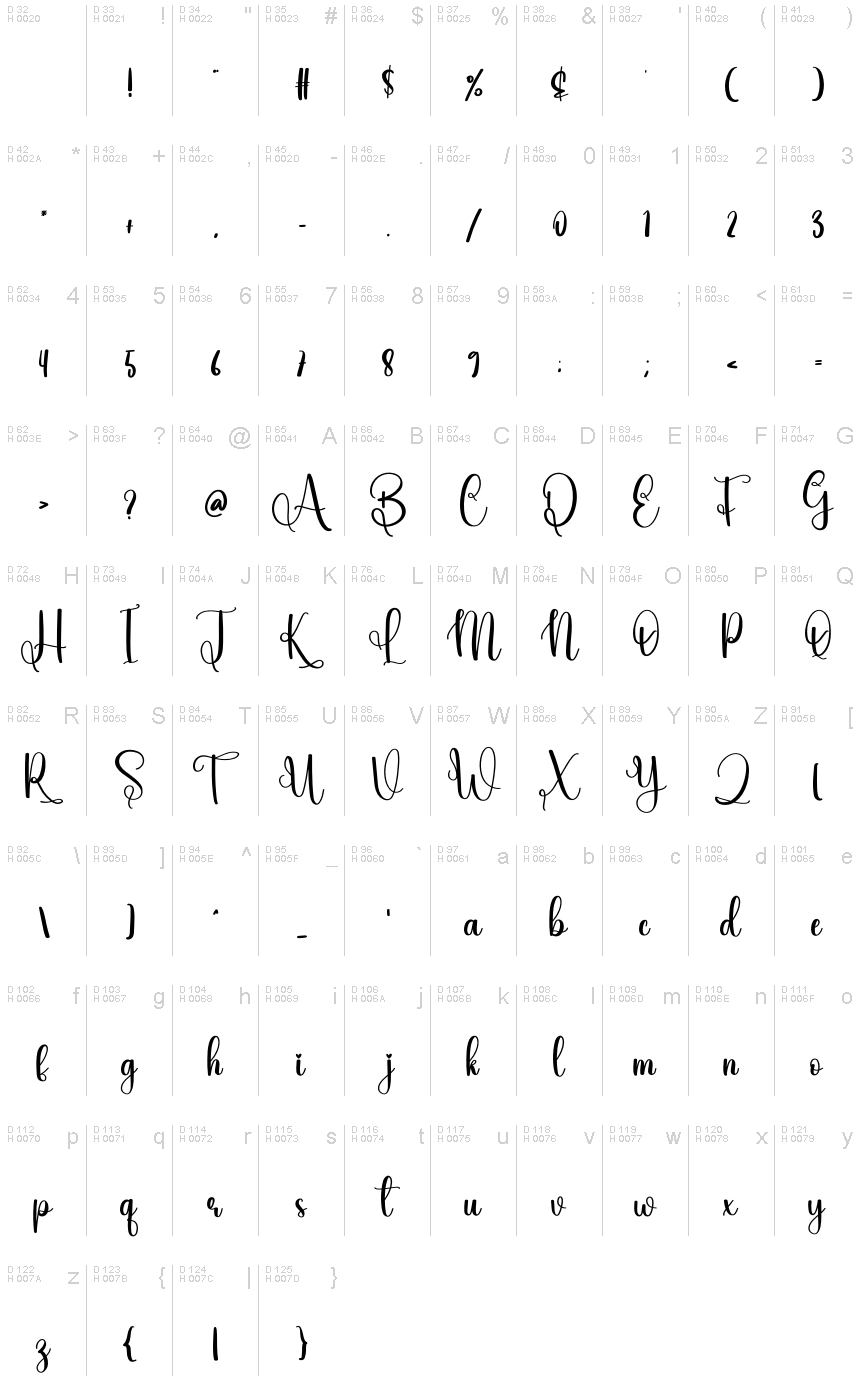
Bulky
Bulky, crafted by Scratchones, is a font that dances between the timeless elegance of calligraphy and the playful boldness of contemporary design. Its sweeping curves and generous shaping convey a sense of warmth and personality, inviting viewers into a narrative woven by each hand-drawn letter. The font's pronounced strokes give it a presence that can't be ignored, making it perfect for headlines that demand attention or branding projects that aim to stand out.
Its aesthetic appeal lies in its balance between the classic touch of calligraphy and the impactful flair of modern typography. Whether gracing the cover of an artisanal product or splashed across digital banners, Bulky promises to infuse your message with an unforgettable charm.